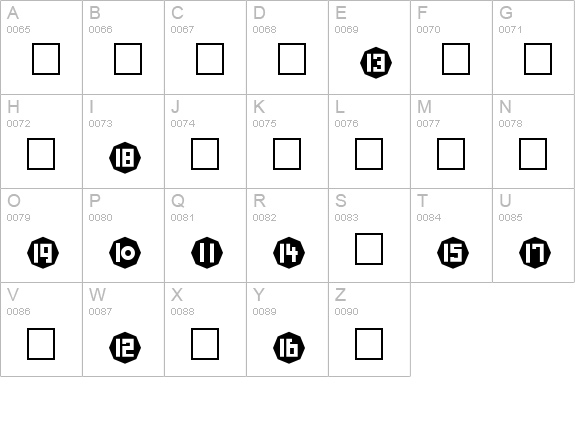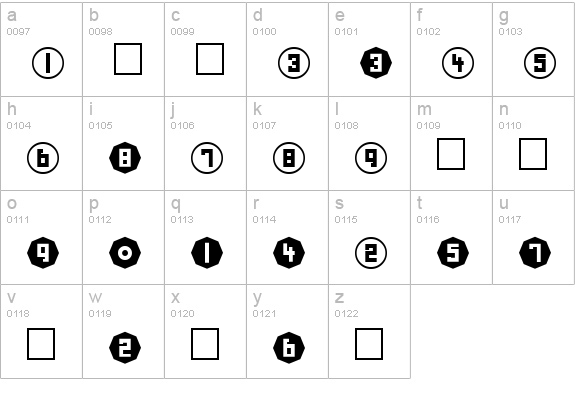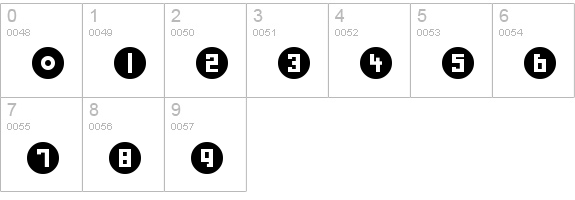
Number Plain Font Details
Number Plain font is a sleek and modern typeface that is perfect for adding a touch of sophistication to your design projects. With its clean lines and minimalist aesthetic, this font is versatile and can be used in a variety of applications. Whether you are creating a business card, website, or poster, Number Plain font will make your text stand out. The best part? Number Plain font is completely free to download at FontsMarket.com. So you can add this stylish font to your collection without breaking the bank. Don't miss out on the opportunity to enhance your designs with this elegant and timeless font. Download Number Plain font today and take your projects to the next level.